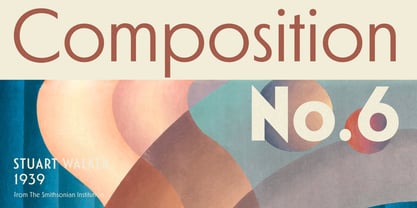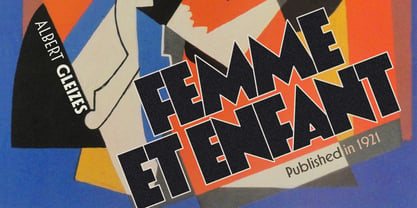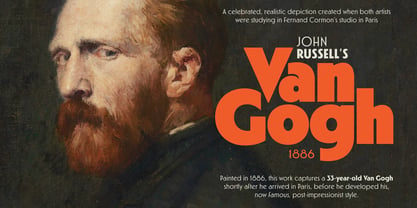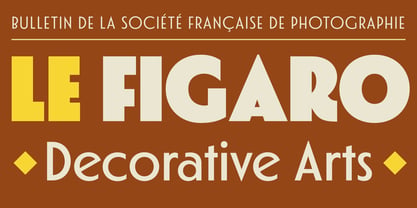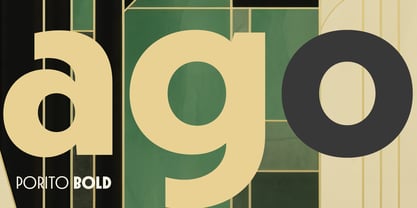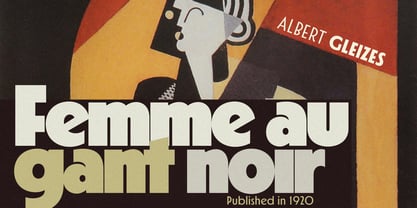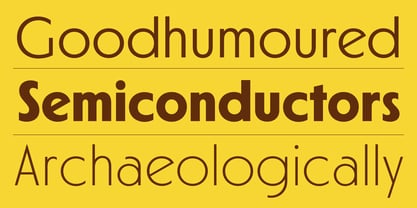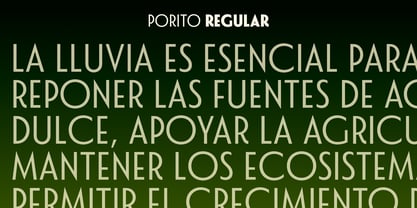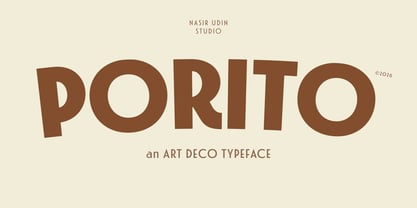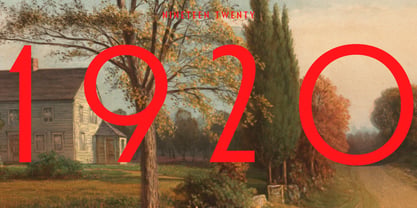
Porito
by Nasir Udin
Porito is an art deco-inspired type family featuring 14 distinct fonts. This family is characterized by simple, straight geometric forms and dynamic proportions, giving it a modernized retro aesthetic. Porito's versatility makes it suitable for a wide range of design projects, including branding, posters, magazines, and product packaging. Furthermore, with an extended Latin character set, Porito supports over 200 Latin-based languages, ensuring its broad applicability across diverse themes and styles. This font family is perfect for enhancing visual identity and creating impactful designs.
Before he got into type design, he had designed travel posters under the Vectro label. His illustrative style is an impression of similar posters from the mid 20th century. As a designer, he enjoy looking to both the past and the future for inspiration. That's why he love to blend a retro style with a futuristic concept. He started type design on 2016 as his side project, before he take it seriously. You can follow @studio.nasir on Instagram, he loves to capture a lettering on old buildings (Dutch, Chinese, Arabic, blend with the local Javanese).